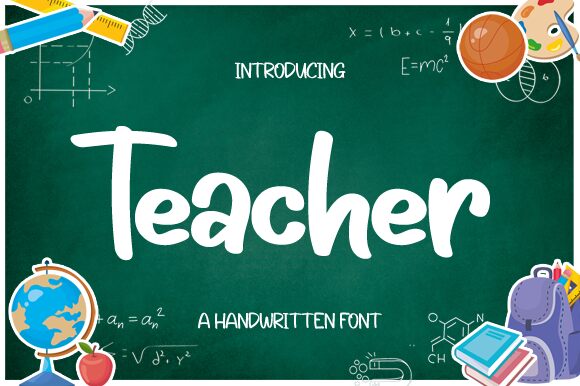
Teacher
Teacher font by Graphix Line Studio is a free handwritten font with a friendly and approachable aesthetic. Its modern casual style, smooth flow, and handwritten feel make it ideally suited for contemporary applications. Immediately capture your readers’ attention using Teacher in branding projects, packaging, labels, as well as other creative projects.
Other potential uses include poster designs, book or album covers, logotypes and signage. Make the best out of invitations for birthdays or weddings along with greeting cards sent to family members and friends! Social media posts using this beautiful typeface will also have a fresher appearance.